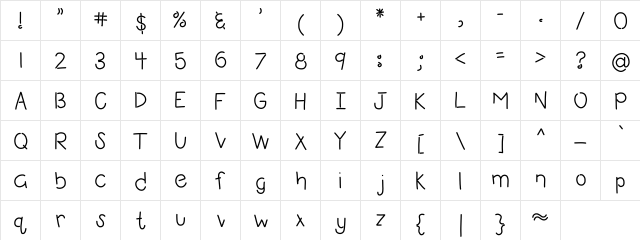
HomegirlOpenMinded Medium
Design Context for HomegirlOpenMinded Typeface
HomegirlOpenMinded offers clean, dependable letterforms without strong stylistic allegiance, making it a practical choice for designers who need flexibility.
Pro Tip: Use HomegirlOpenMinded in both headline and body roles to test its range before committing to a single application.